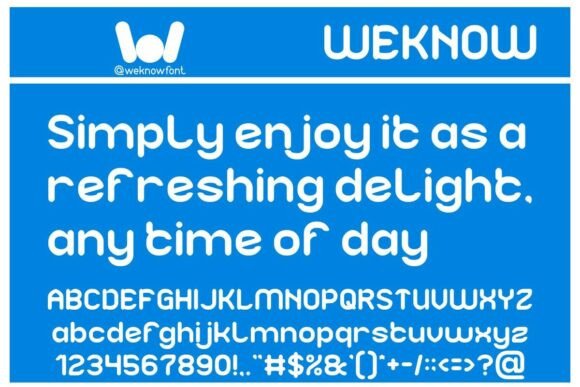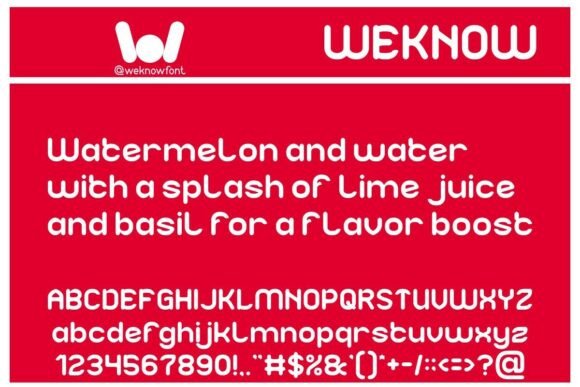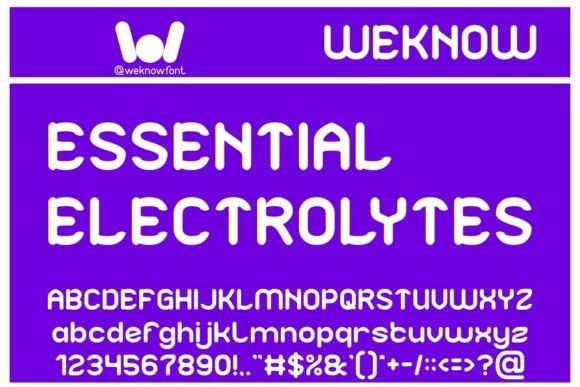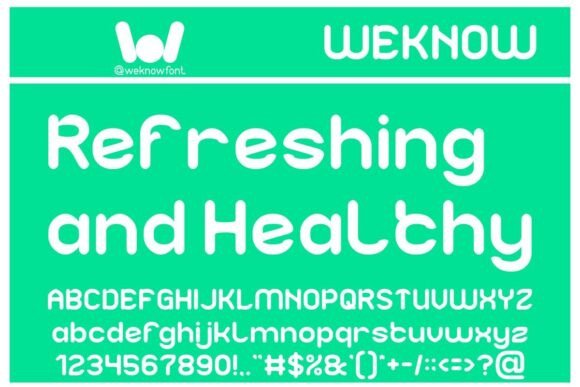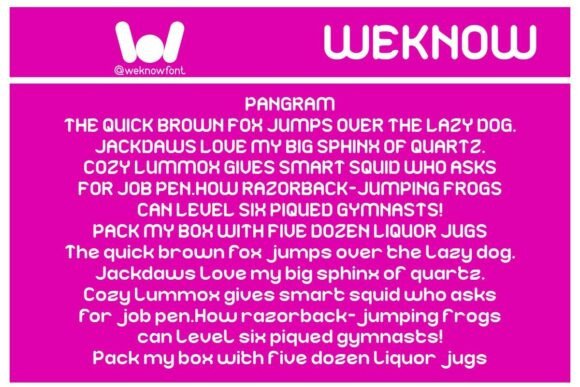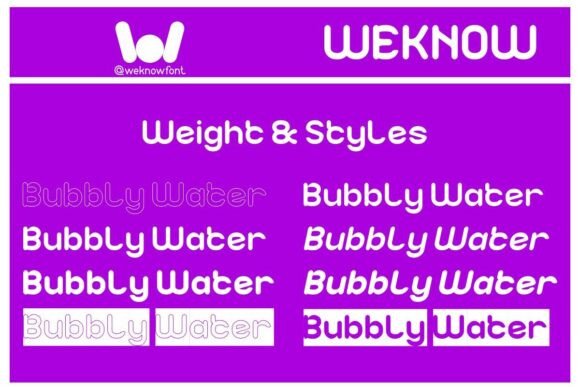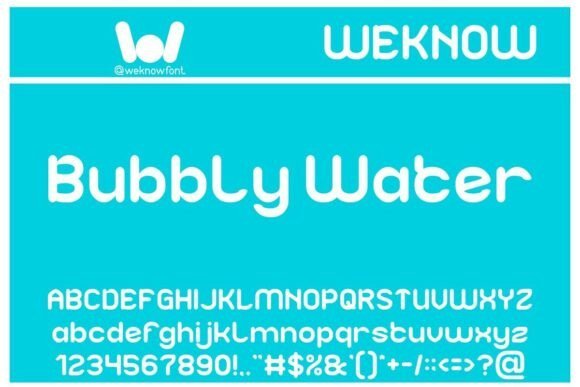
Where Design Meets Delight: Unleashing the Magic of Bubbly Water Font
Have you ever stared at a blank page, waiting for that spark of creativity to ignite? For designers, those moments of inspiration can be the most thrilling – and the most elusive. But what if you had a secret weapon to unlock your imagination and bring your designs to life? Enter the Bubbly Water Font, a playful and whimsical typeface that’s sure to add a splash of fun to any project.
This charming font is more than just a pretty face – it’s a versatile tool designed to elevate your designs and leave a lasting impression. With its rounded edges and geometric sans-serif structure, the Bubbly Water Font is perfect for logo creations, captivating headlines, and brand identities that stand out from the crowd. Whether you’re working on a fashion statement, a movie title, or a game user interface, this font is sure to bring a touch of originality to your work.
Bubbly Water Font Key Features
- Font Family: Bubbly Water Font is a unique, hand-drawn font family designed to evoke the feeling of bubbles and water.
- Unique Characteristics: Bubbly Water Font features a playful, whimsical design with irregular shapes and rounded edges, making it perfect for creating eye-catching and fun designs.
- Font Styles: The font family includes 6 different font styles: Regular, Italic, Bold, Bold Italic, Light, and Light Italic, offering a wide range of options for customization.
Bubbly Water Font Review
Overall, I think the Bubbly Water Font has some great qualities, but it also has some limitations. Let’s dive into the good and the not-so-good.
- The font is playful and fun, perfect for designs that need a lighthearted touch.
- The bubbly design elements add a unique and creative twist to text.
- The font is highly customizable, allowing you to adjust size, color, and spacing to fit your needs.
- The font may not be suitable for formal or professional designs, as it can come across as too casual.
- The bubbly design elements can be distracting in certain contexts, such as in small text or dense paragraphs.
While the Bubbly Water Font has its limitations, I think it’s a great choice for designers who want to add a playful touch to their work. With some careful consideration of the context and design requirements, this font can be a fun and effective addition to your toolkit.
The Bubbly Water font is perfect for:
Designing kids’ party invitations and decorations.
Creating playful and whimsical branding materials.
Adding a touch of fun and personality to social media graphics.